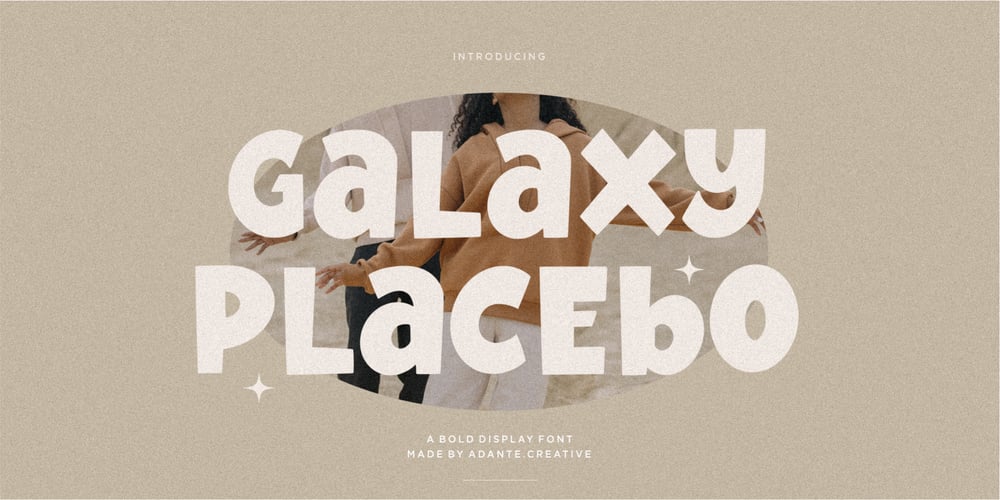
Galaxy Placebo Font Family was designed by Yanto Suheri and published by Adante Creative. Galaxy Placebo contains 1 styles and family package options. Introducing by Adante.CreativeProudly Presenting Galaxy Placebo is a bold Display fontGalaxy Placebo is perfect for product packaging, branding projects, megazine, social media, wedding, or just used to express words above the background.Galaxy Placebo has multilingual support.Enjoy the font, feel free to comment or feedback, send me PM or email.